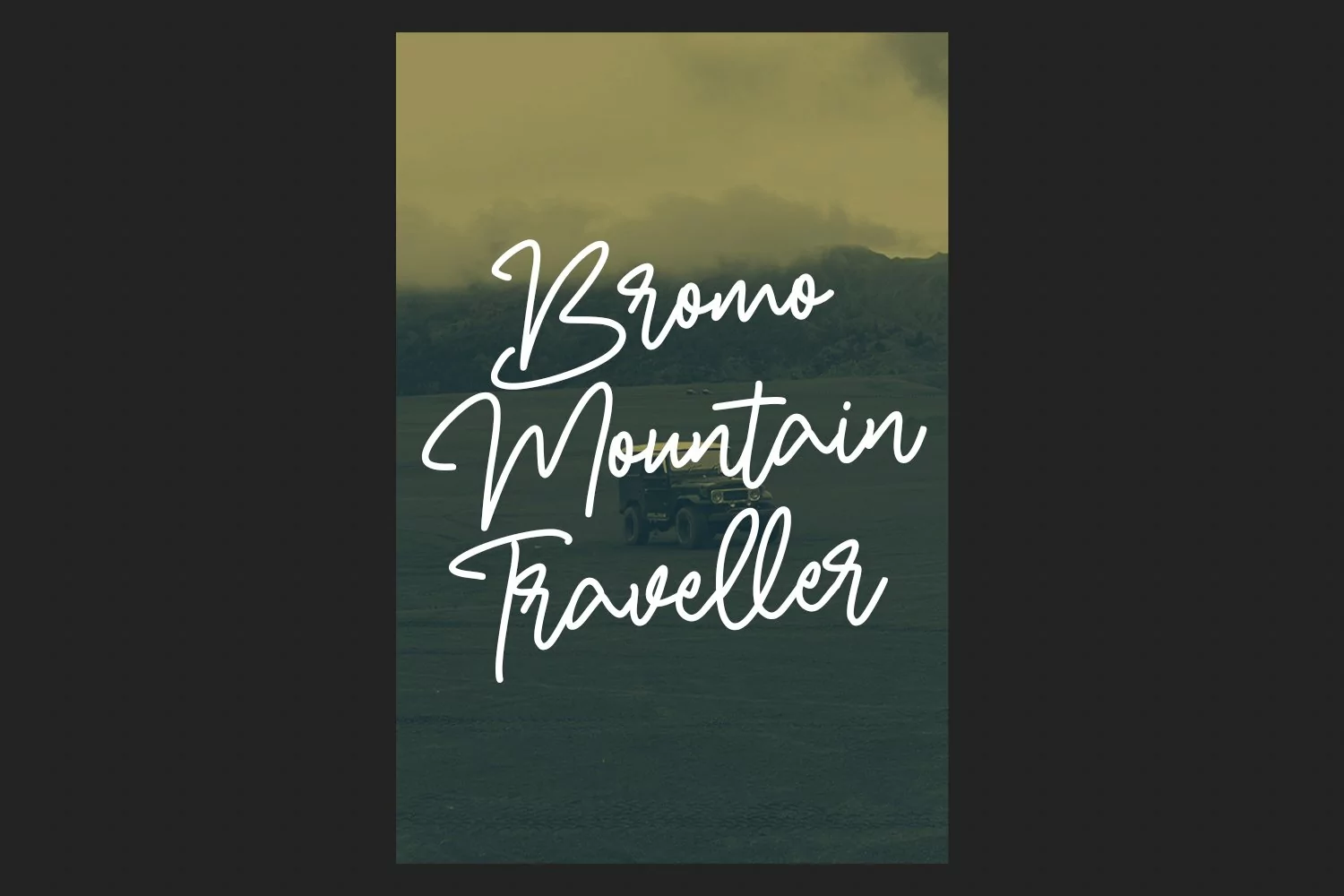
North Glides is a script font with natural hand drawn, clean mono-line stroke, slant and fun character with lowercase alternate and ligatures. To give you an extra creative work. North Glides font support multilingual more than 100+ language. This font is good for logo design, Social media, Movie Titles, Books Titles, a short text even a long text letter and good for your secondary text font with sans or serif. Make a stunning work with North Glides font.